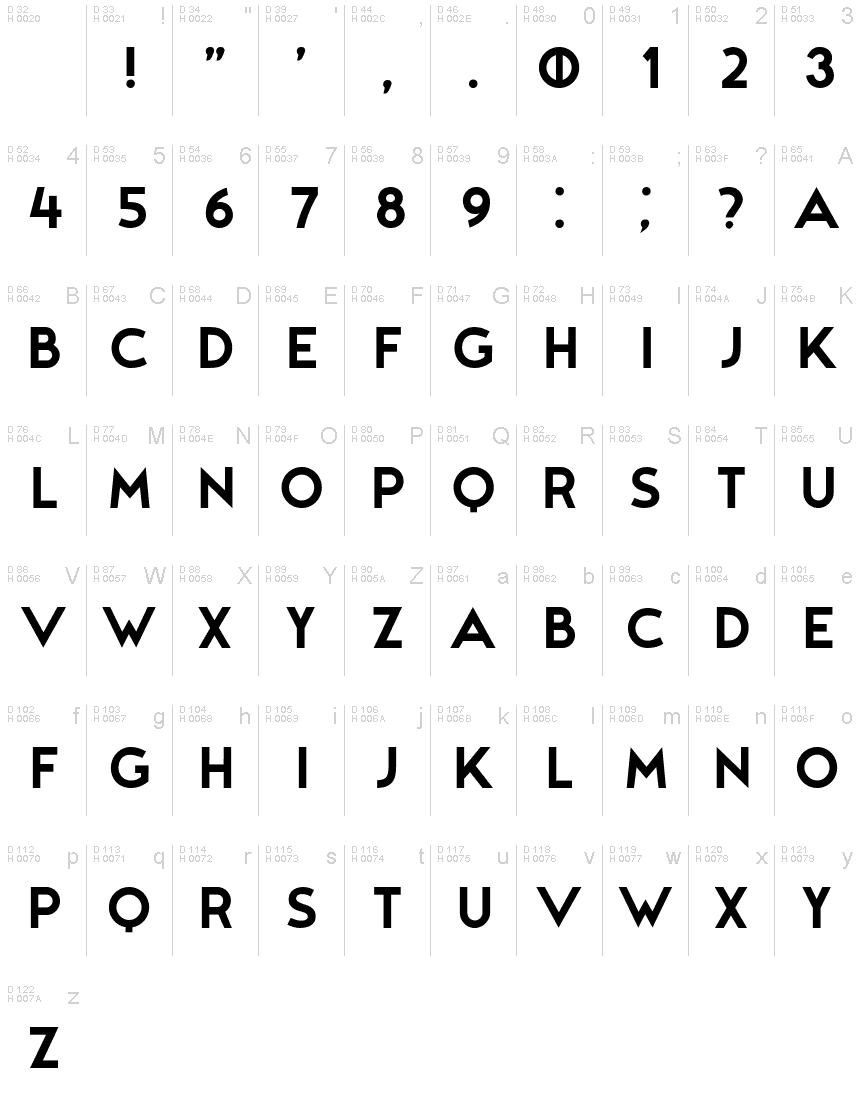
Anya Regular
Anya, a bold and wide sans serif font by Vladimir Nikolic, is perfect for a variety of design projects. Its clean and modern design makes it ideal for headlines, titles, and logos, while its bold weight makes it suitable for designs that require a strong visual impact. Anya's wide width also makes it perfect for designs that require a lot of space, such as posters and billboards. Whether you're designing for print or digital, Anya is a versatile font that will bring a strong and contemporary aesthetic to your project.